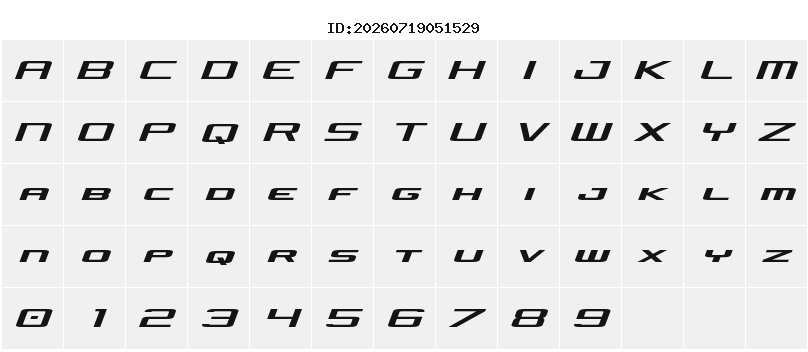
• Font Name: Concielian Jet Expanded Semi-Italic
• Font Style: Expanded Semi-Italic
• Full Font Name: Concielian Jet Expanded Semi-Italic
About Concielian Jet Expanded Semi-Italic.ttf
Concielian Jet Expanded Semi-Italic.ttf is a modern, elegant sans-serif font designed for ultimate readability and visual harmony. Perfect for branding, headlines, web design, and print materials.